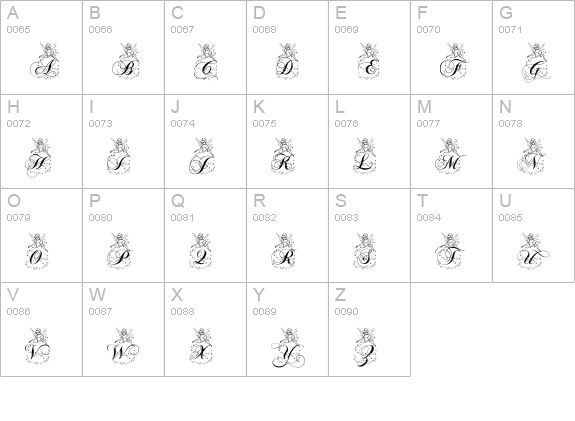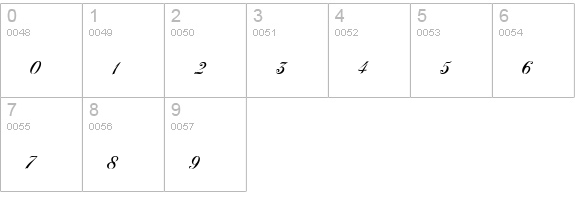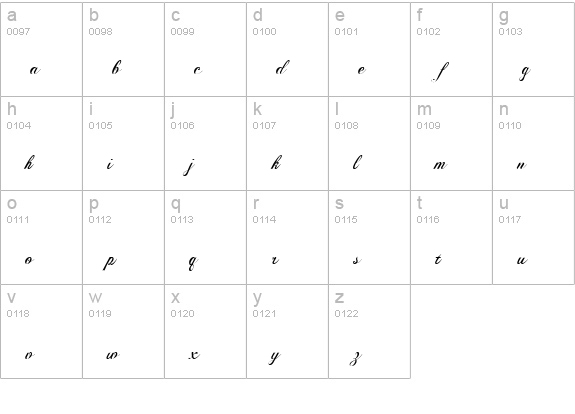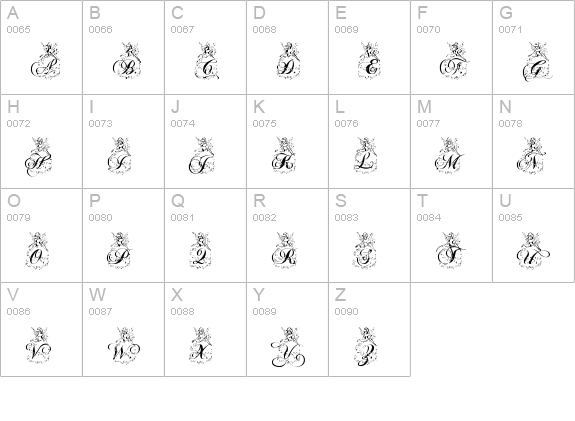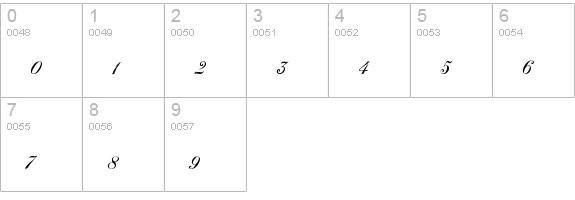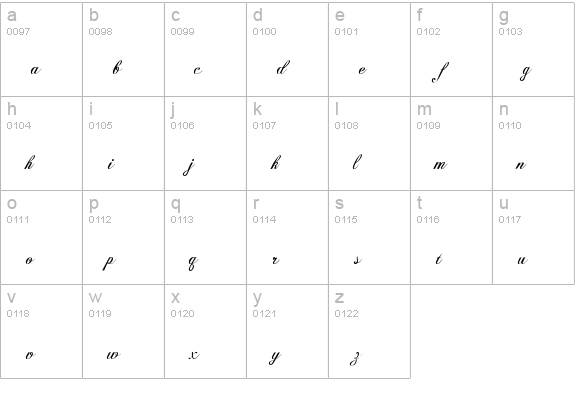
AL Cinderella Font Details
AL Cinderella font is a whimsical and elegant typeface that exudes charm and sophistication. With its delicate curves and graceful lines, this font is perfect for adding a touch of magic to any project. Whether you're designing invitations, creating branding materials, or crafting social media graphics, AL Cinderella font is sure to make a statement. And the best part? AL Cinderella font is completely free to download at FontsMarket.com. So go ahead and add a touch of fairy-tale magic to your designs with this enchanting font.